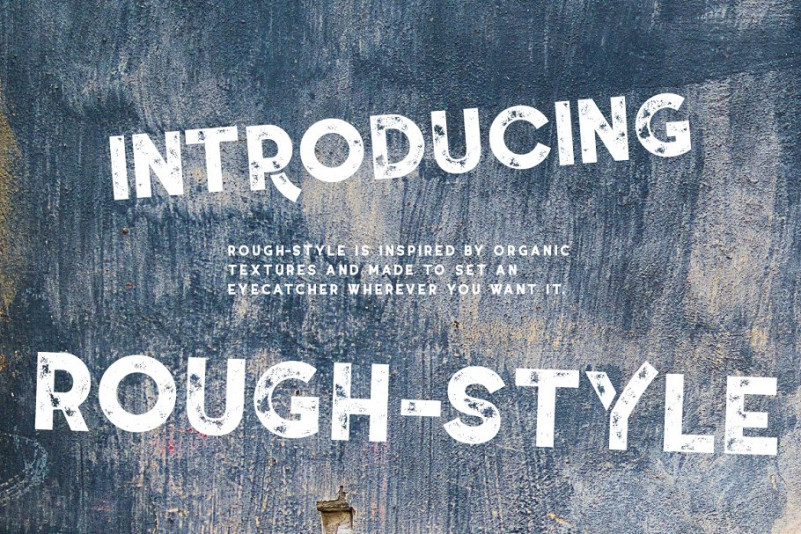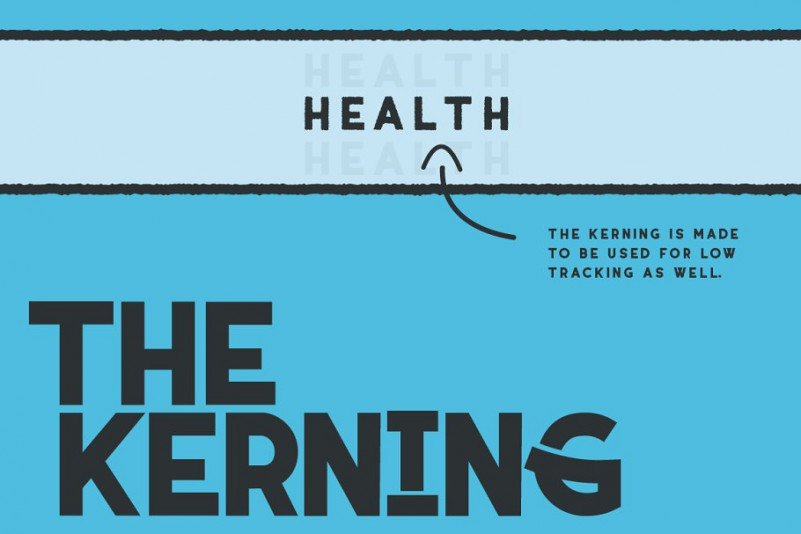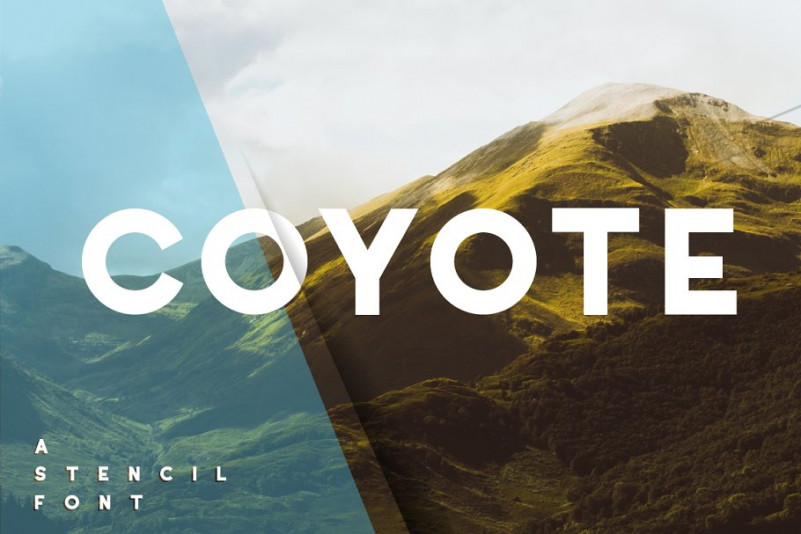
Coyote Font Family
This is a new crazy & retro font family! This is an amazing typography for Bold and Modern Ideas, Creative Thinking and Urban Lifestyle. You will love it! Introducing Coyote Retro Font. It’s a fancy retro type with sharp edges to emphasize the calm character of the font. Or you go crazy with the alternative letters. Create Amazing Branding ideas, logos, labels, t-shirts, brochures, and more!